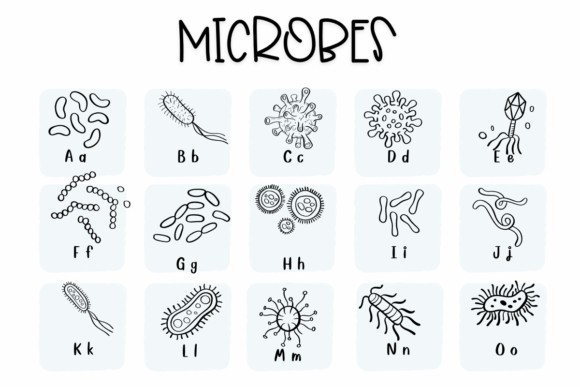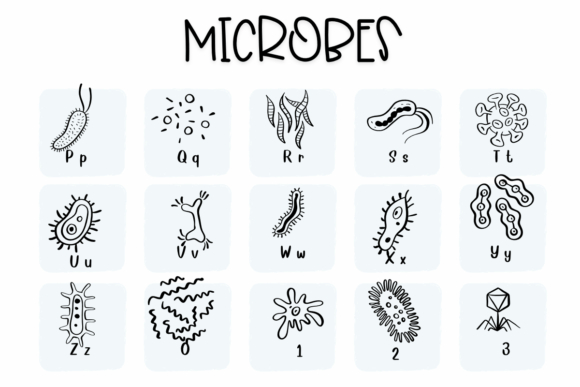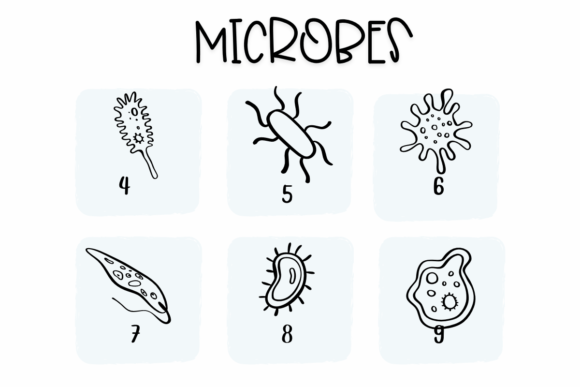
Introduction to Microbes Font
Remember the moment you stumbled upon the perfect design element for your DIY wedding invitation project? The one that made everything fall into place and elevated your creative vision? For many designers, finding that special something can be a game-changer. And for those who’ve worked with Microbes Font, they know exactly what I’m talking about.
As a high-quality design resource, Microbes Font is a dingbats font that stands out from the crowd. Its sketched theme adds a unique touch to any project, making it perfect for wedding invitations, DIY crafts, decorations, logos, and much more. What’s even more exciting is that you can download this fantastic font with a transparent background, giving you endless possibilities for customization.
Whether you’re a seasoned designer or just starting out, Microbes Font is an invaluable addition to your creative toolkit. With its free download and versatility, you can take your projects to the next level and make them truly unforgettable.
Key Features of Microbes Font
- High-quality design resource ideal for creative projects, posters, and advertisements.
- Unique, stylized characters that evoke a sense of scientific discovery and exploration.
Honest Review: Microbes Font
As a designer, I’m always on the lookout for unique and high-quality design resources to elevate my creative projects. Recently, I had the chance to try out the Microbes Font, and I must say it’s been a game-changer for my latest design endeavors.
Here are some of the things that work well for this font: ✨
- Unique aesthetic: The Microbes Font has a quirky, organic feel that’s perfect for adding a touch of personality to your designs.
- High-quality design: The font is expertly crafted, with precise details and smooth lines that make it perfect for printing or digital use.
However, there are a few limitations to keep in mind: ⚠️
- Transparent background: The font’s transparent background can sometimes make it difficult to use with certain design elements.
- Limited font sizes: While the font is available in several weights and styles, the options for font sizes are somewhat limited.
Overall, I’m thoroughly impressed with the Microbes Font. Its unique aesthetic and high-quality design make it an excellent addition to any designer’s toolkit. With a little creative problem-solving, I’ve found that the limitations can be easily worked around. If you’re looking for a fresh and exciting font to spice up your designs, the Microbes Font is definitely worth checking out.
Microbes Font is commonly used in various design projects, including:
- Brochures and flyers
- Website design and development